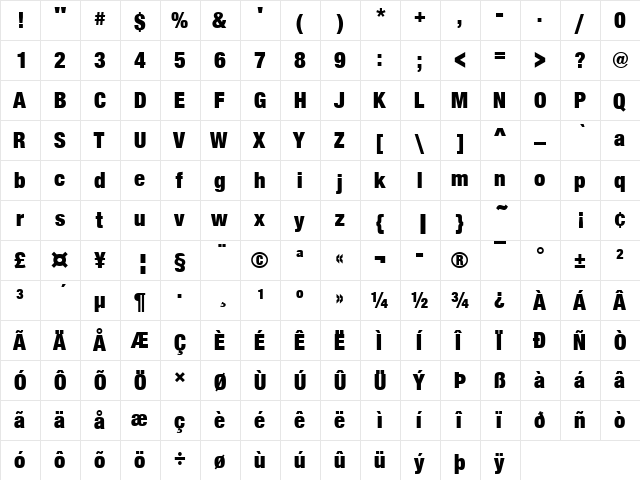
NimbusSanNovDBlaCon Regular Font Preview
NimbusSanNovDBlaCon Regular
Design Context for NimbusSanNovDBlaCon Typeface
NimbusSanNovDBlaCon offers clean, dependable letterforms without strong stylistic allegiance, making it a practical choice for designers who need flexibility.